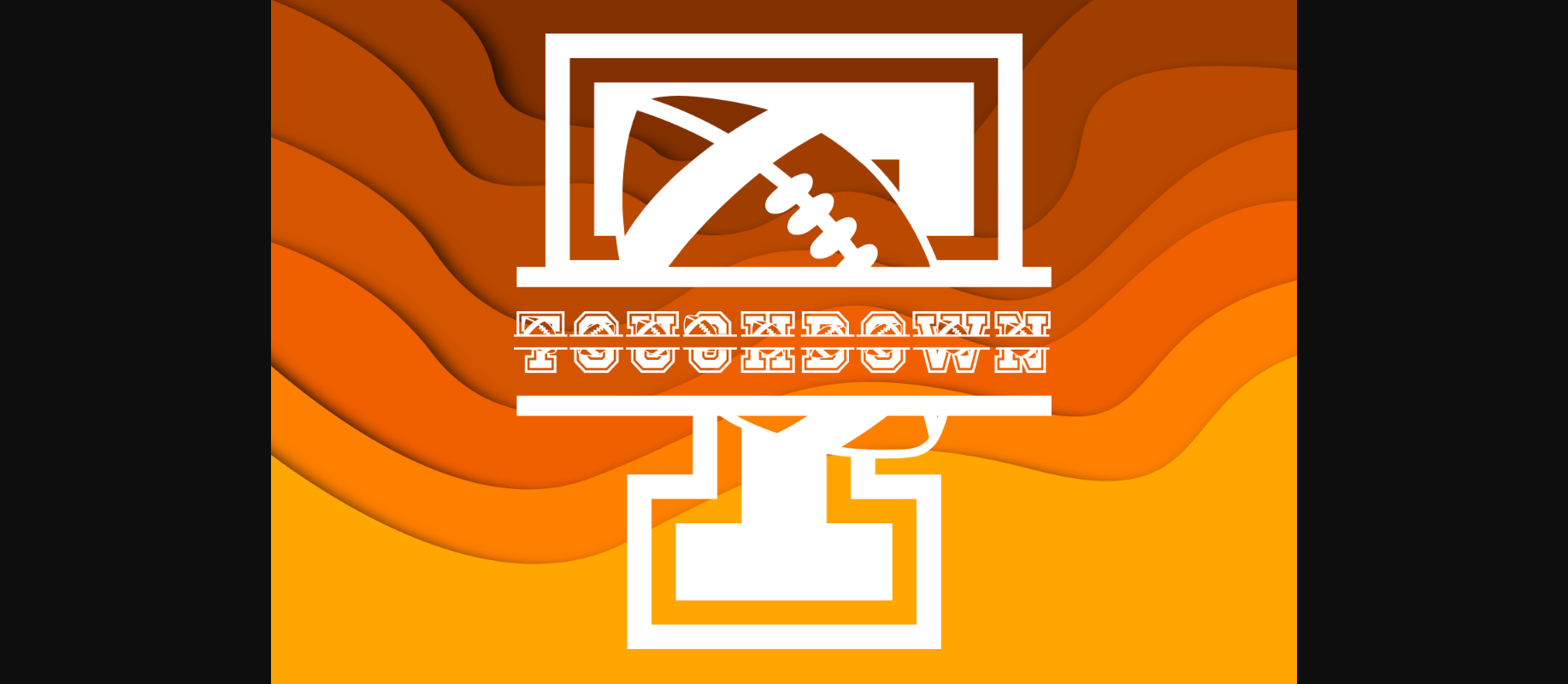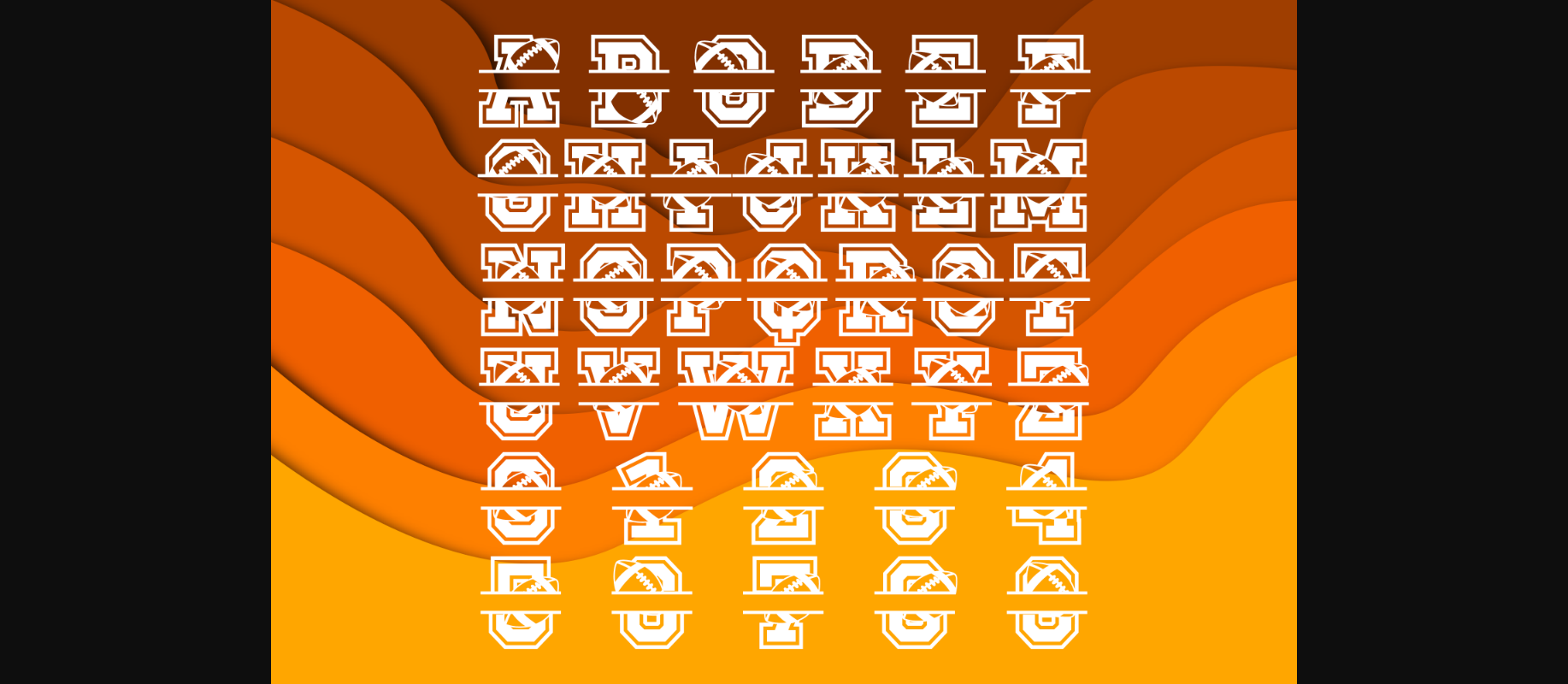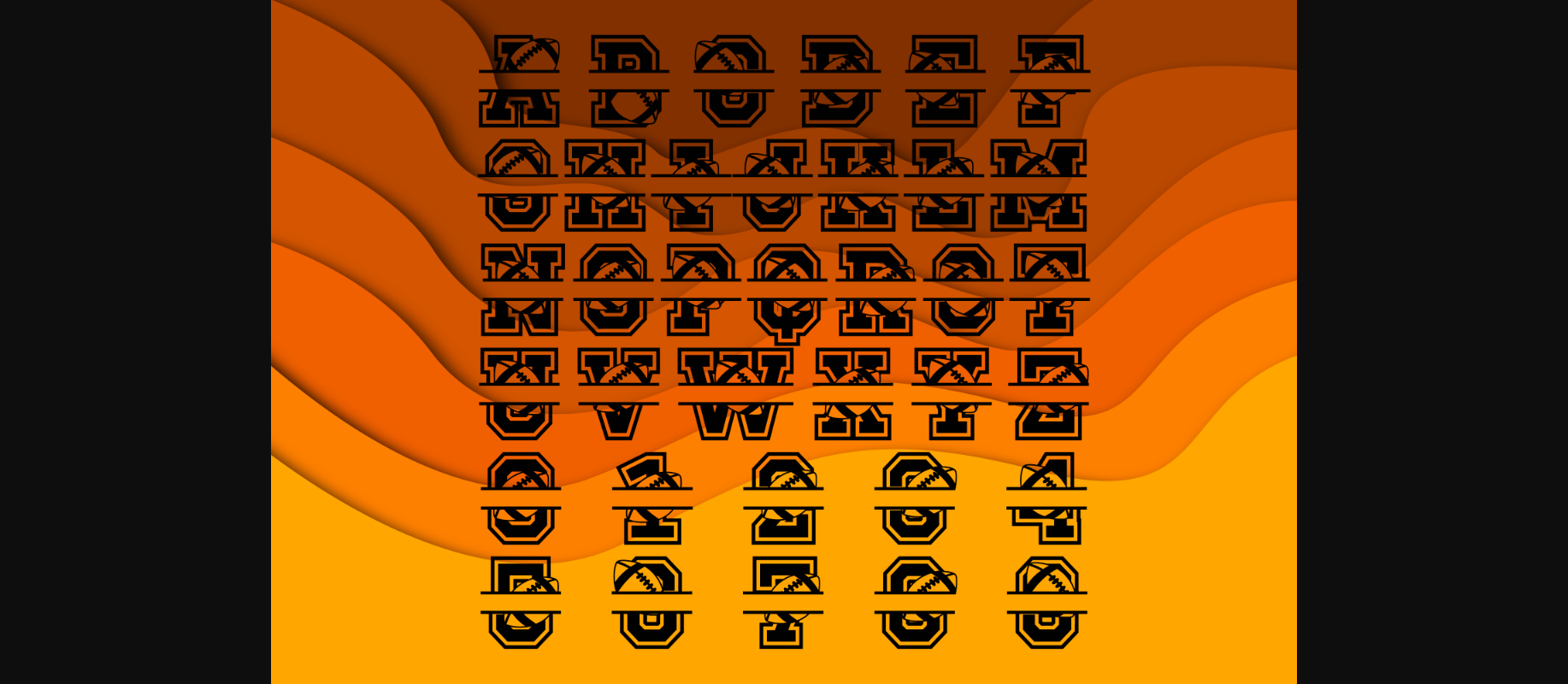
Touchdown Font
About Touchdown Font
Touchdown is an incredibly cool font. Simple but with a strong visual effect, this font will instantly make your creation more appealing than any others.